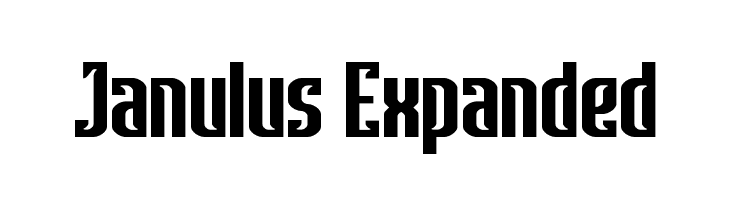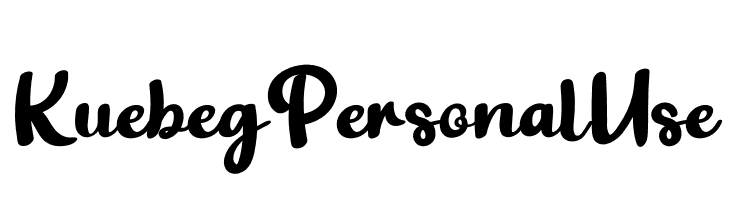
A bold, modern font with sharp angles and an expanded style.
A bold, geometric font with dramatic shapes, perfect for striking headlines.
( Fonts by Eko Bimantara )
A bold, impactful font with thick, uniform strokes and slightly condensed characters.
A bold, geometric font with a modern, cinematic style.
A playful font with letters embedded in school-themed doodles.
A classic monospaced font with a clean, structured design.
( Fonts by Kong Font )
A playful, bold handwritten font with rounded edges and a casual style.
( Fonts by www.houseoflime.com )
A decorative font inspired by traditional Celtic art with intricate patterns and motifs.
A bold, geometric font with strong, angular lines and a modern comic book style.